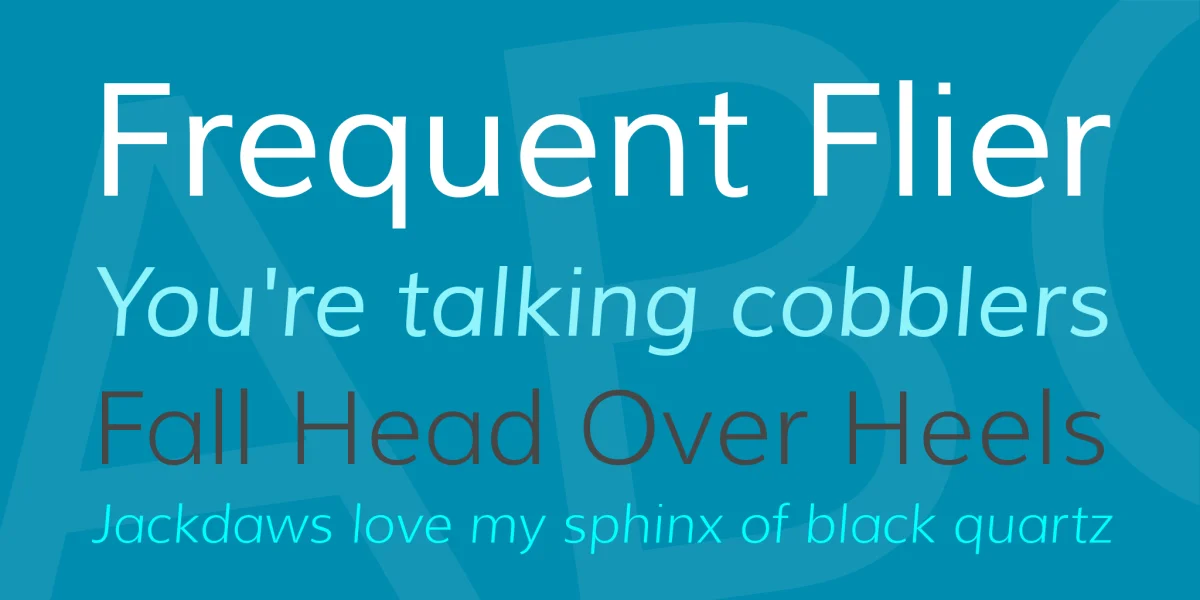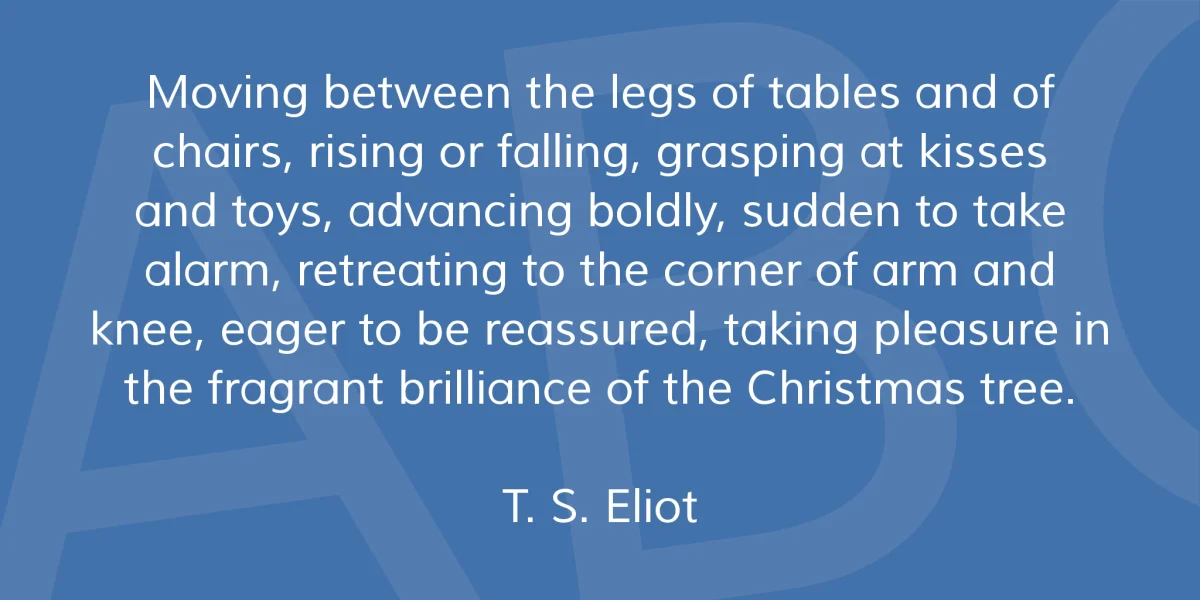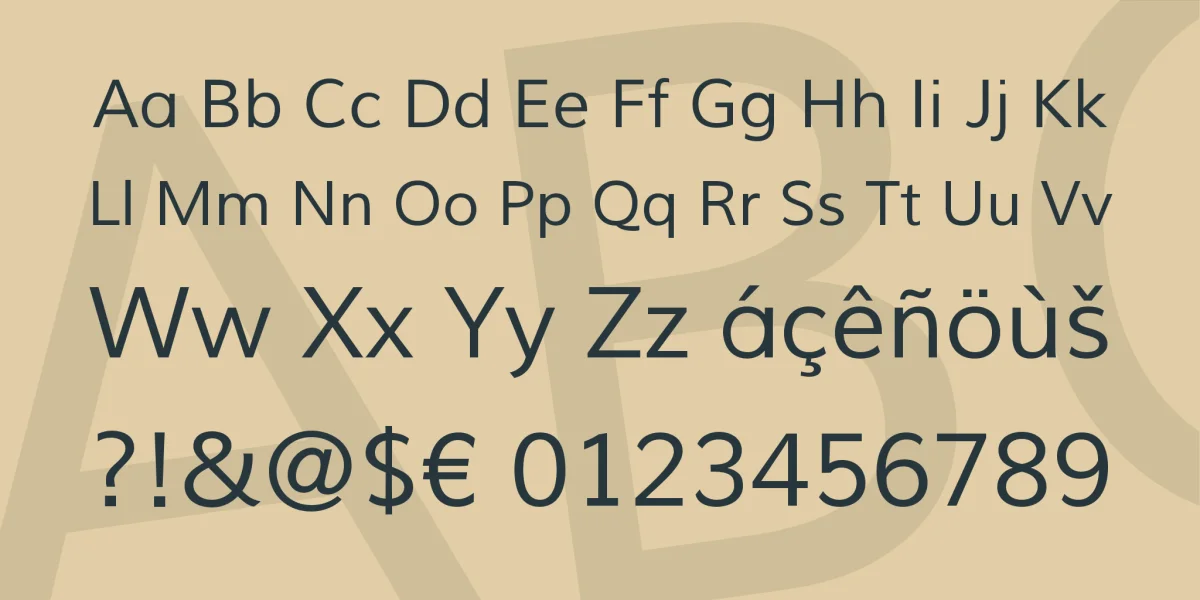
Muli is a minimalist Sans Serif. Muli is designed mainly for use as a display font but is useable as a text font too. Muli has been designed to be used freely across the internet by web browsers on desktop computers, laptops and mobile devices.